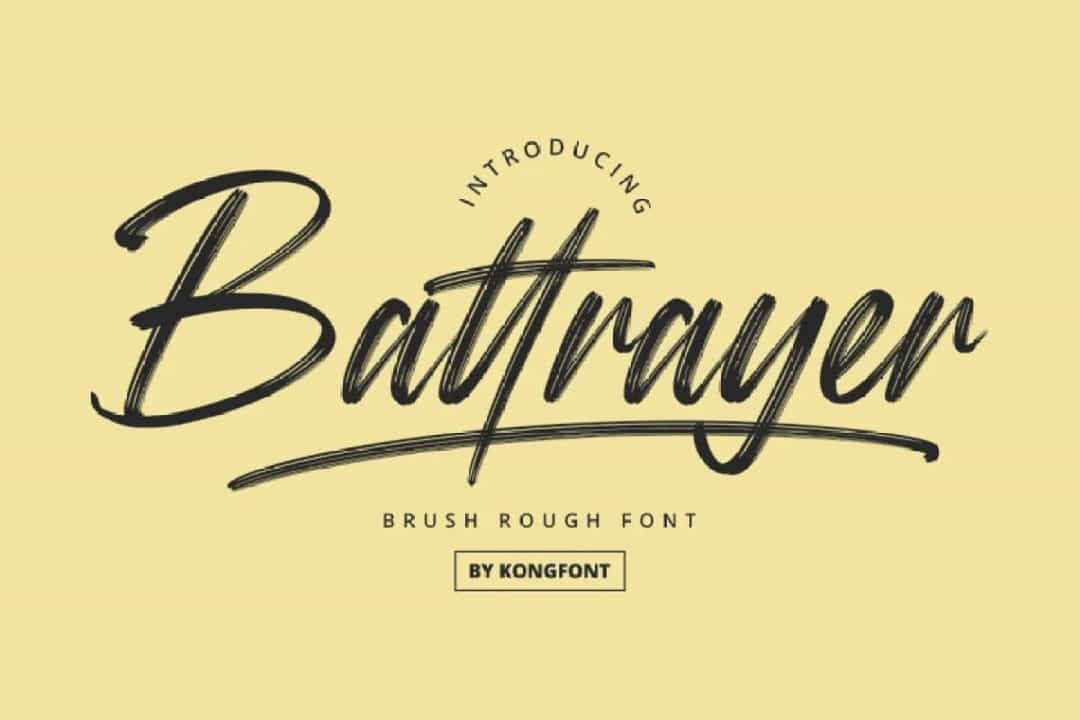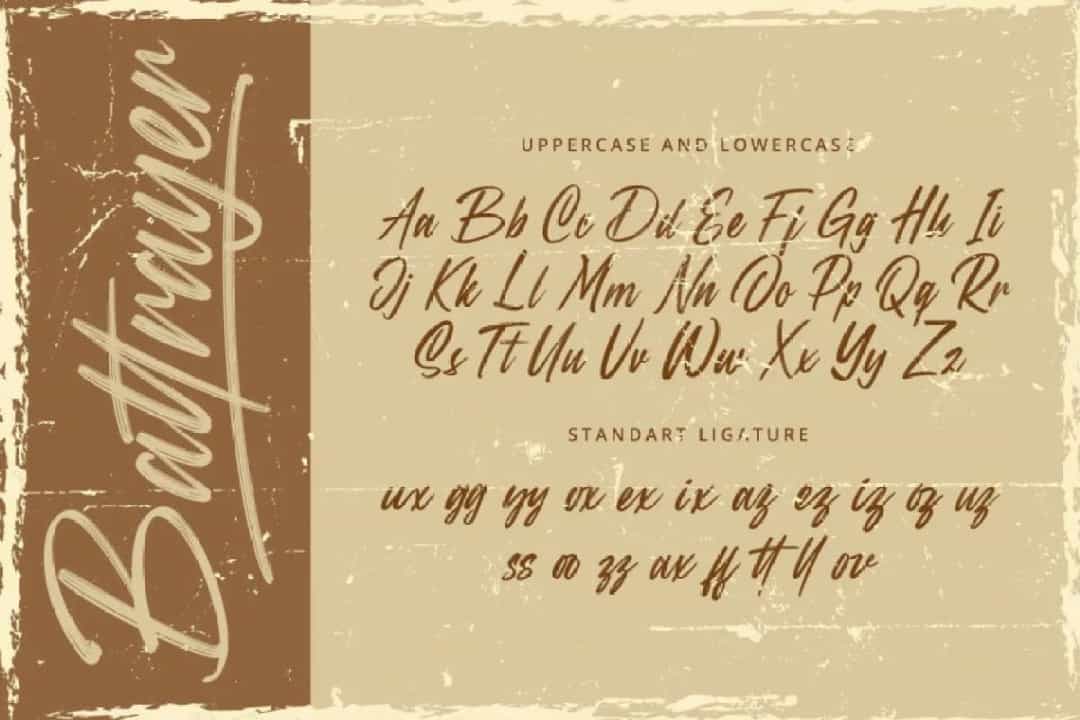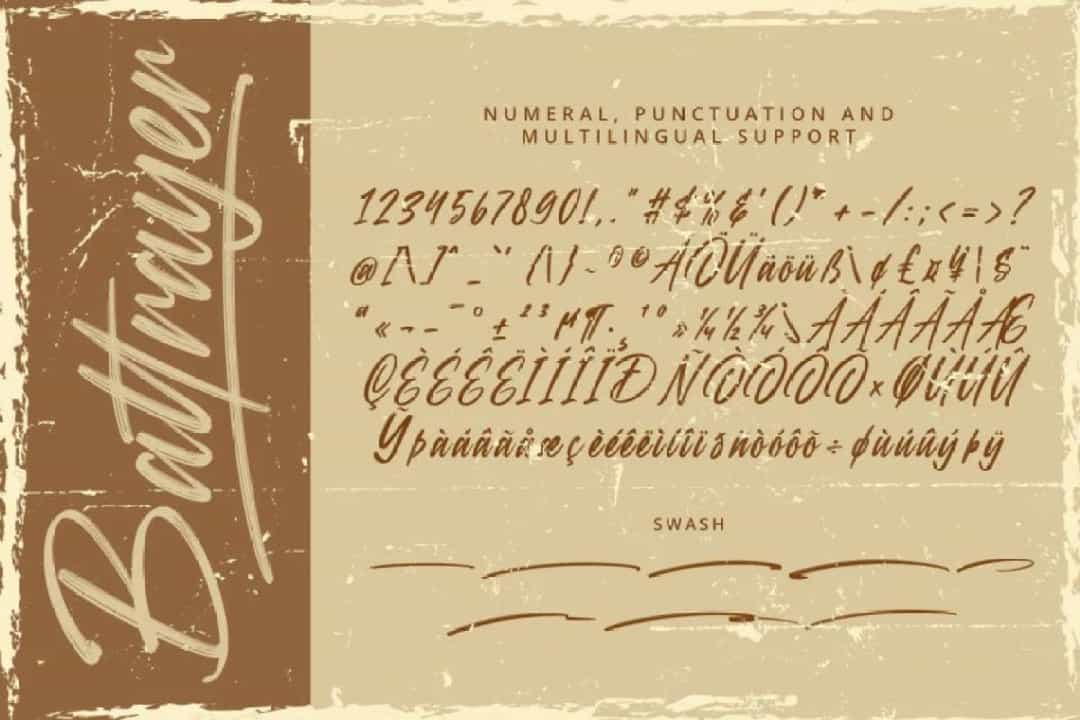
Battrayer is a Brush font featuring natural brush strokes with dry and rough brush strokes and quick hand strokes that create sharp lines and quick sweeps of writing – ideal for wedding invitations or blog posts as well as logo designs.